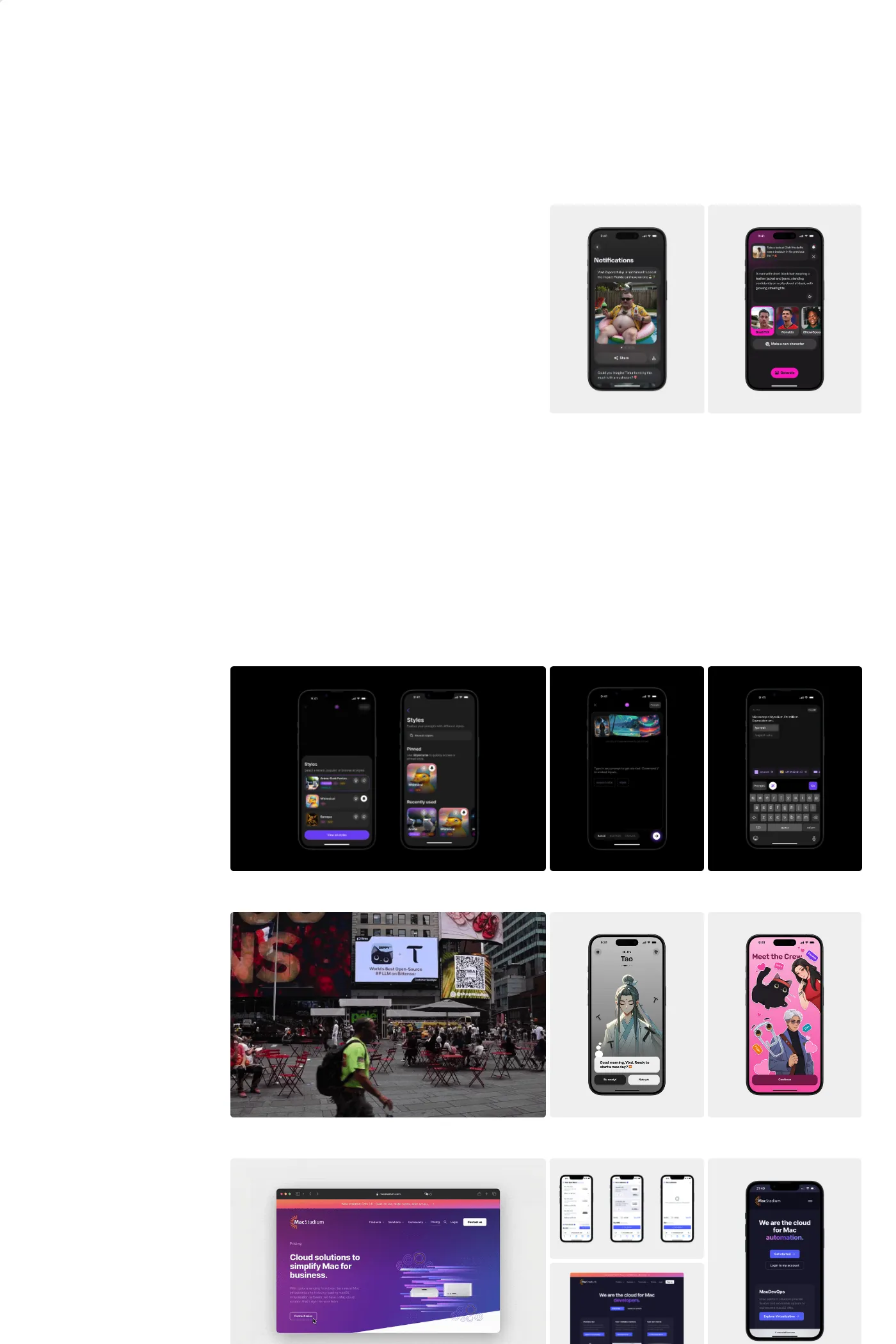
Commit Mono is a monospace typeface from Eigil Nikolajsen.
Commit Mono is an anonymous and neutral programming typeface focused on creating a better reading experience.
A1 features 2 websites using Commit Mono, including Vlad Zaporozhskyi and Resend. They lean towards Minimal, Bento, and Video design styles, and they’re most often built with Readymag and Next.js.